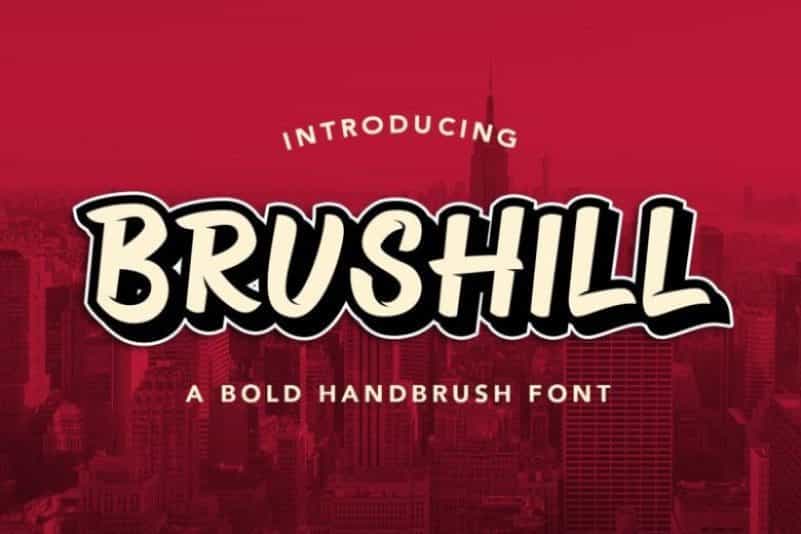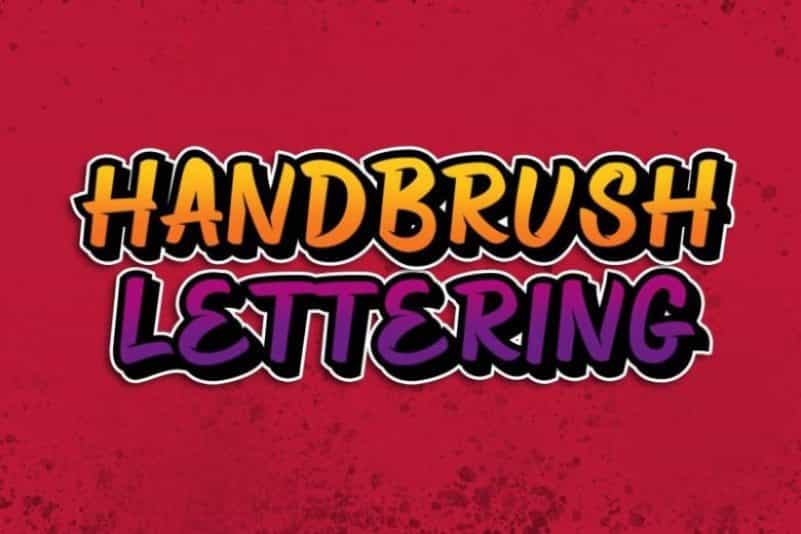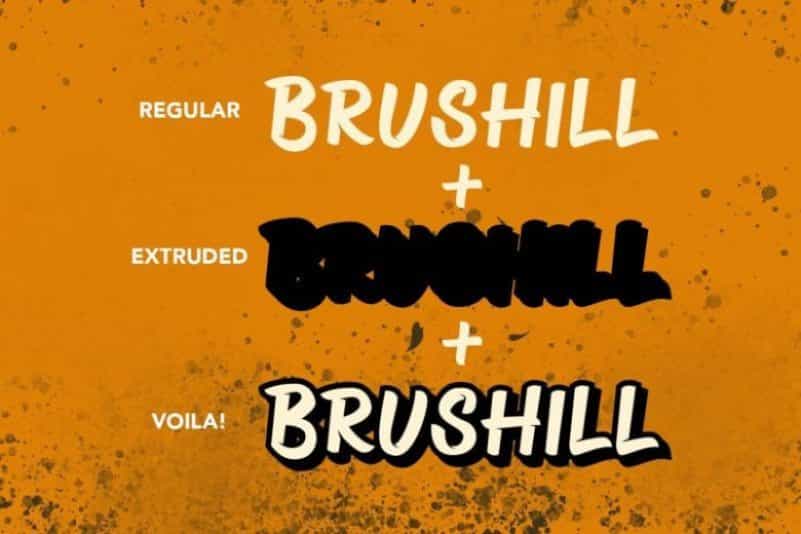
Discover Brushill Font, part of the Brush Display collection—a versatile and unique font perfect for adding a personal touch to your projects. Download it for free and enjoy crafting designs with style, from invitations to social media posts. This font is available exclusively for personal use, giving you the freedom to create without limits. Unlock your creativity with Brushill Font today!
Brushill is classified as a handbrush font with a bold appearance. This font is perfect for branding and enhance your any project, it is ideal for wedding invitation or your blog. With their assistance, one can design a logo or beautiful frame for the house Or for a small business, book covers, stationery, marketing, magazines, etc.